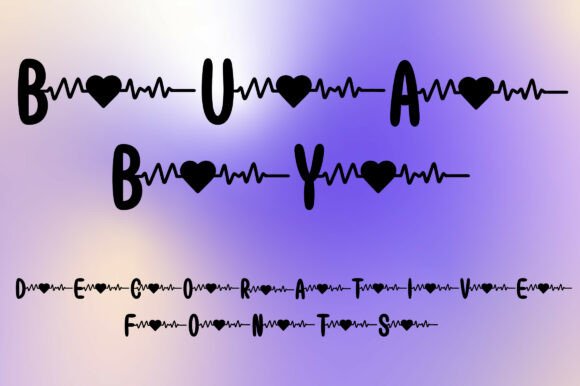
Introducing Buaby Font: The Ultimate EKG Heart Style Dingbats for Creative Projects
Are you a designer or crafter looking for a unique and creative font to add a touch of personality to your projects? Look no further than Buaby Font, a wonderful and creative font inspired by heartbeat lines and heart-themed artistic designs. In this article, we’ll explore the features and benefits of Buaby Font, and how it can elevate your designs to the next level.
What is Buaby Font?
Buaby Font, also known as BUABY EKG Heart Style Dingbats, is a decorative font that features uppercase English letters A-Z and numbers 0-9, all designed with a bold and playful heart-themed style. The font is inspired by the rhythmic lines of an electrocardiogram (EKG) and the symbolism of the heart, making it perfect for projects that require a touch of energy, emotion, and personality.
Unique Decorative Style
The unique decorative style of Buaby Font is what sets it apart from other fonts. Each letter and number is designed to resemble a heartbeat line, giving it a dynamic and lively feel. The font’s bold and playful style makes it perfect for logos, branding, posters, invitations, medical-themed designs, packaging, social media graphics, and more.
Endless Creative Opportunities
With Buaby Font, you have endless opportunities to express your creativity with style, passion, and imagination. The font’s unique design allows you to add a touch of personality to any project, making it perfect for designers and crafters who want to stand out from the crowd. Whether you’re creating a logo, poster, or social media graphic, Buaby Font is sure to add a bold and playful touch.
Perfect for Various Projects
Buaby Font is versatile and can be used for a variety of projects, including:
- Logos and branding: Add a touch of personality to your brand with Buaby Font’s unique and bold style.
- Posters and flyers: Create eye-catching posters and flyers with Buaby Font’s playful and decorative style.
- Invitations: Make your invitations stand out with Buaby Font’s bold and heart-themed design.
- Medical-themed designs: Buaby Font’s EKG-inspired design makes it perfect for medical-themed projects, such as brochures, posters, and social media graphics.
- Packaging: Add a touch of personality to your packaging with Buaby Font’s unique and decorative style.
- Social media graphics: Create engaging social media graphics with Buaby Font’s bold and playful style.
Here are some of the key features and benefits of Buaby Font:
- Unique and creative design inspired by heartbeat lines and heart-themed artistic designs.
- Features uppercase English letters A-Z and numbers 0-9.
- Bold and playful style perfect for adding energy, emotion, and personality to any project.
- Versatile and can be used for a variety of projects, including logos, branding, posters, invitations, medical-themed designs, packaging, and social media graphics.
In conclusion, Buaby Font is a wonderful and creative font that is perfect for designers and crafters looking to add a touch of personality to their projects. With its unique decorative style, bold and playful design, and endless creative opportunities, Buaby Font is sure to elevate your designs to the next level. Whether you’re creating a logo, poster, or social media graphic, Buaby Font is the perfect choice for adding energy, emotion, and style to your project.